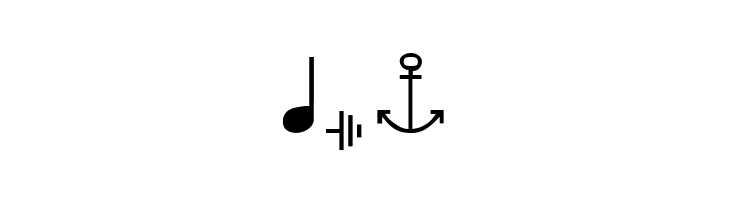
Cairo Black Font
A bold, modern sans-serif font with a strong and impactful design.
Cairo Bold Font
Cairo Font
A bold, high-contrast slab serif font with a strong, impactful presence.
Cairo Regular Font
Cairo SemiBold Font
A modern, semi-bold sans-serif font with clean lines and excellent readability.
Nouveau Regular Font
An Art Nouveau-inspired font with elegant, flowing lines and a modern twist.
CairoExtended Regular Font
A bold, slab serif font with extended, thick strokes for impactful design.
Cairo Light Font
A modern, light sans-serif font with clean lines and balanced proportions.
Cairo ExtraLight Font
A modern, clean sans-serif font with geometric shapes and consistent stroke width.
Cairo Medium Font
A diverse set of outlined pictogram icons with a playful and clear style.
FlamanteCairoBold Font
A bold slab serif font with strong, block-like serifs and a robust presence.
H74 Cairissian Font
A bold, geometric font with a futuristic, tech-inspired design.
FlamanteCairo Font
A bold, modern font with clean lines and a strong presence.
CairoExtended Italic Font
A bold, italic font with strong, dynamic strokes and a slightly condensed style.
FlamanteCairoBook Font
A modern and elegant typeface with a clean, balanced design.
Cair Font
A bold, playful font with thick, rounded strokes and a hand-drawn look.
Cairlinn Font
A bold, decorative font with intricate details and high contrast.
Cairopixel Font
Cairlinn Font
A bold, decorative font with ornate flourishes and a vintage style.